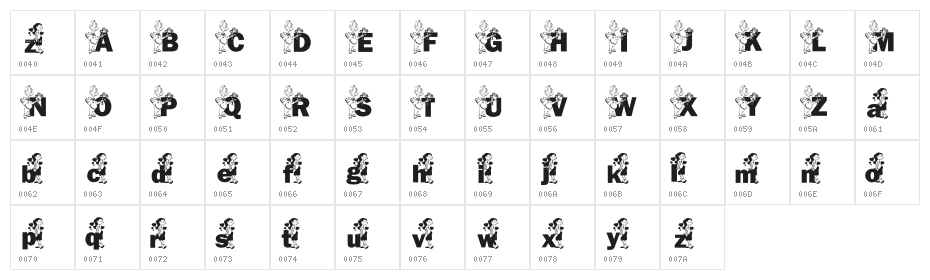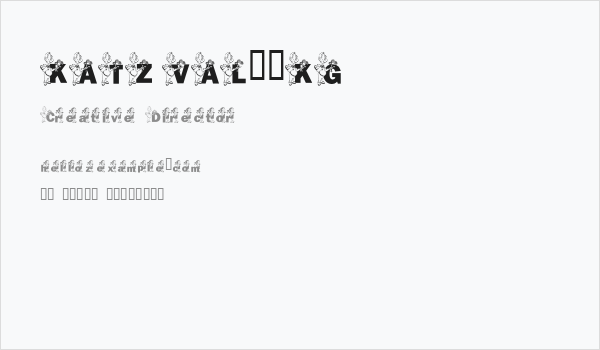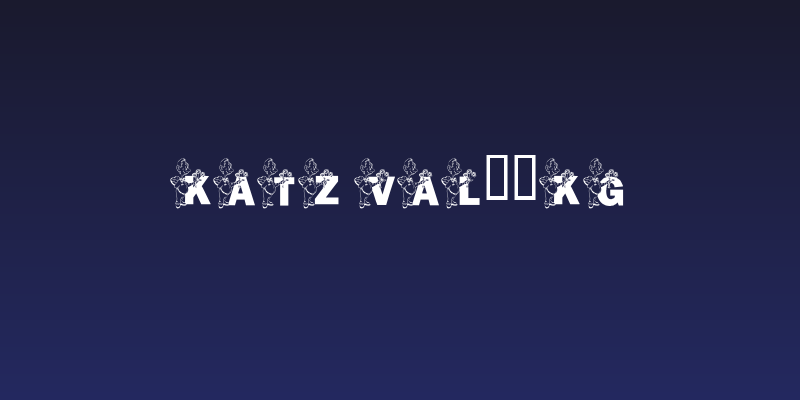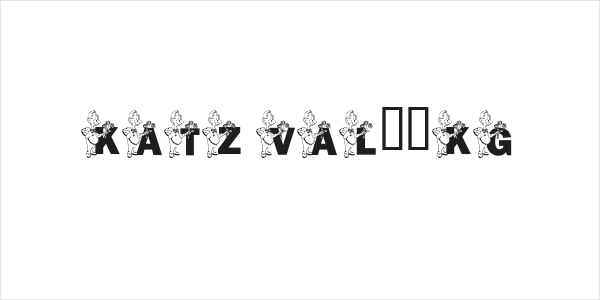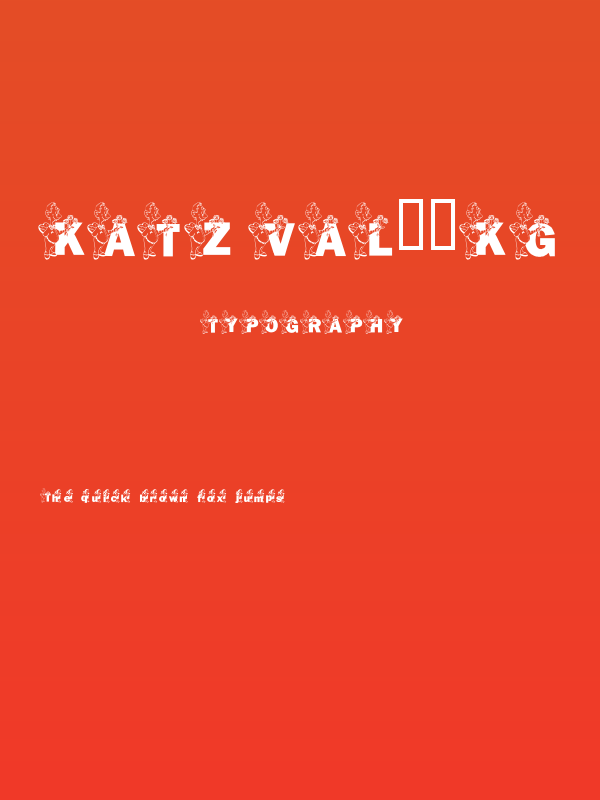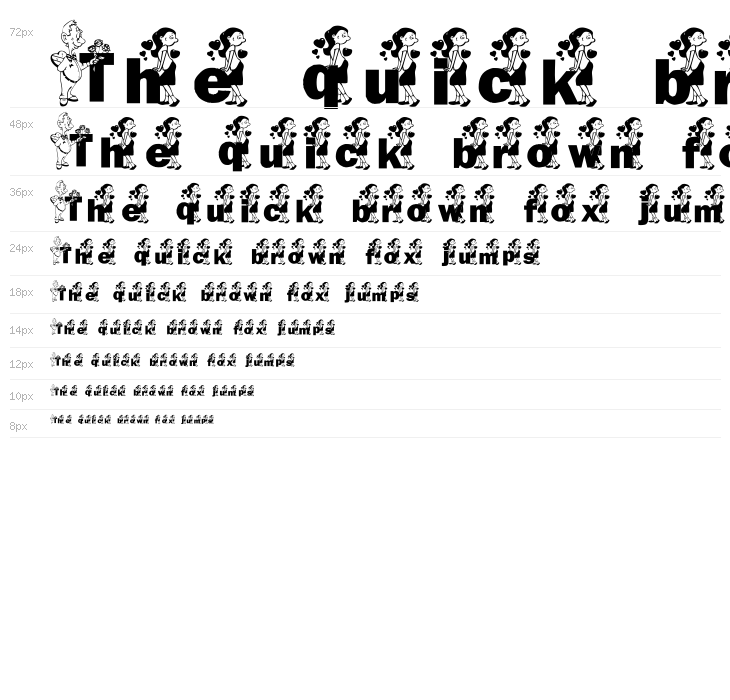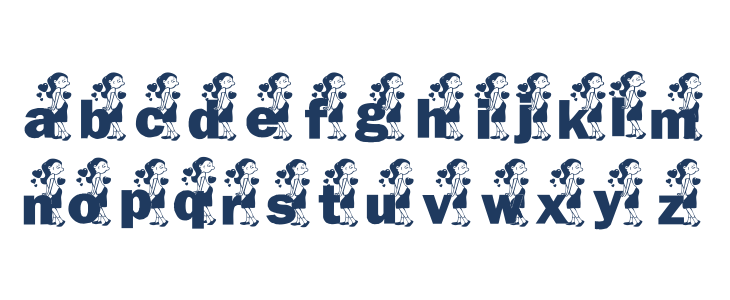
KATZVAL5_KG Font
KATZVAL5_KG Description
This playful and whimsical font features bold, blocky letters with a unique twist. Each character is accompanied by a charming cartoon figure, adding a lively and entertaining element to the design. The font maintains a consistent weight and width throughout, ensuring readability while still offering a decorative flair. The characters are tightly spaced, emphasizing the boldness and making it suitable for eye-catching displays. The contrast in stroke thickness is low, with uniform lines that contribute to its solid appearance. This font is perfect for projects that require a fun and engaging aesthetic, such as children's books, playful branding, or creative posters.
| Overall Style | Playful, Decorative |
| Proposed Projects | Children's books, playful branding, creative posters, party invitations. |